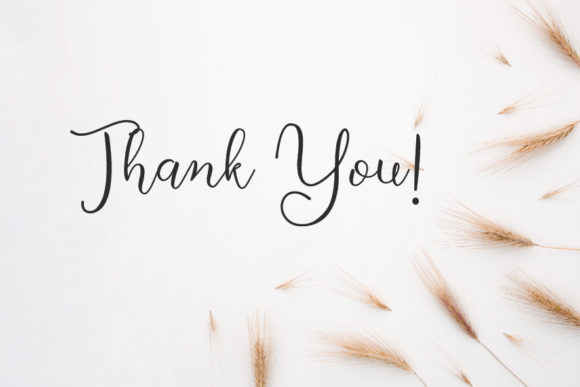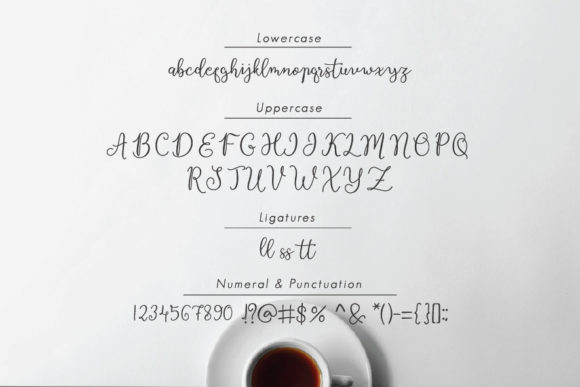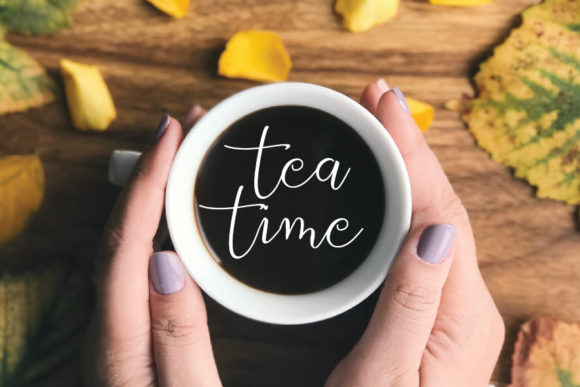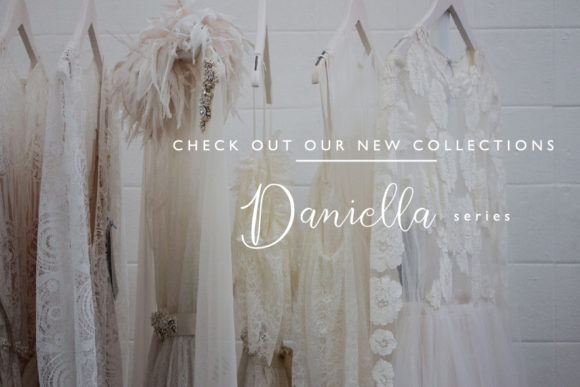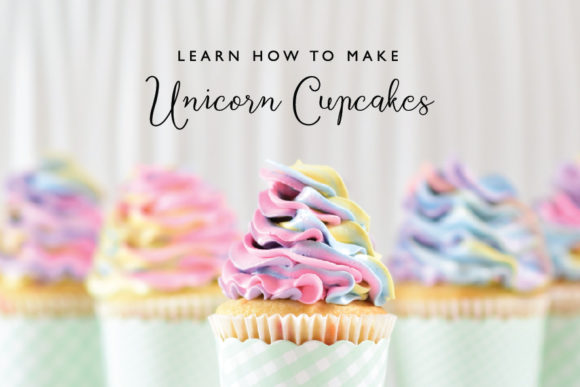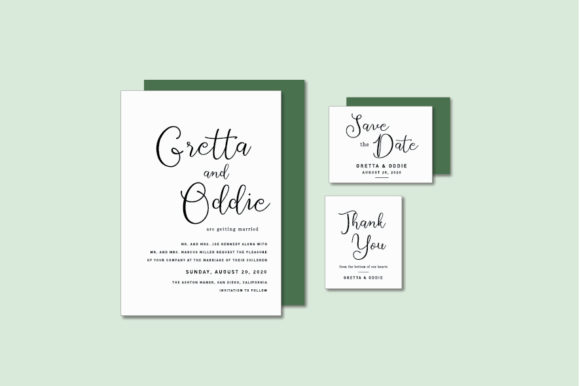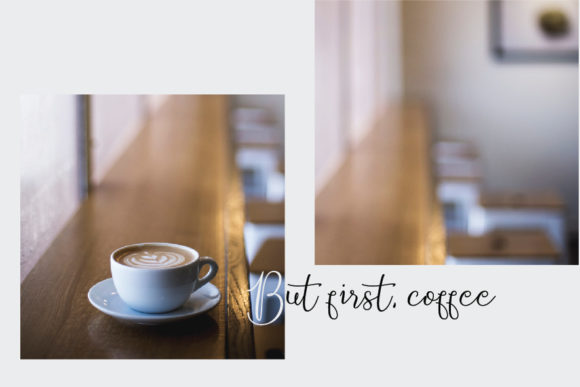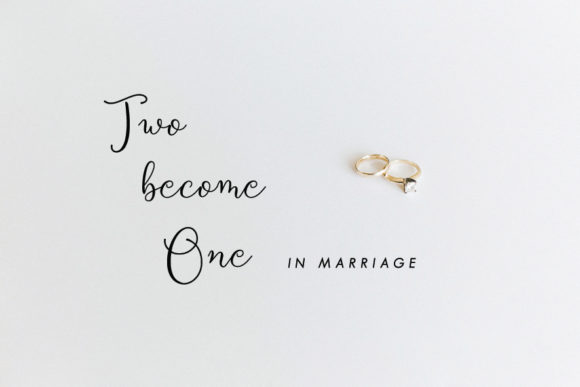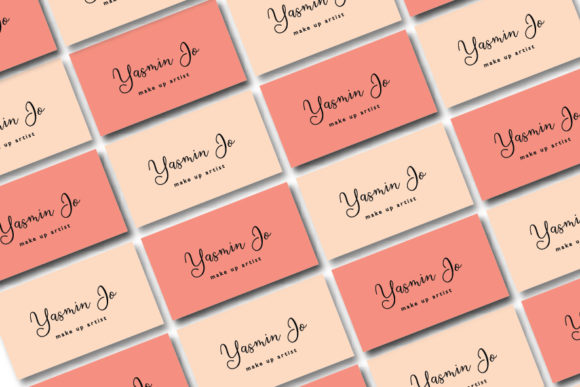
HomeScript FontsBesttea Font Script Fonts Besttea Font FacebookXPinterestWhatsApp Besttea Font Poster 2 Besttea Font Poster 3 Besttea Font Poster 4 Besttea Font Poster 5 Besttea Font Poster 6 Besttea Font Poster 7 Besttea Font Poster 8 Besttea Font Poster 9 Besttea Font Poster 10 About Besttea Font Besttea is a one-of-a-kind handwritten font that will elevate any craft idea. Get inspired by its authentic vibe. DOWNLOAD ON CREATIVE FABRICAThis font is sold and delivered by Creative Fabrica. Font Canyon may earn a commission if you buy through this link. People also explored Bsting Font Gradness Font Banana Font Sallone Font Piktogram Font Rusticle Font Mandors Font Adventure in the Forest Font Madrosah Font 323 0 TagsBesttea Font Previous articleGanella FontNext articleNothingham Script Font LEAVE A REPLY Cancel reply Comment: Please enter your comment! Name:* Please enter your name here Email:* You have entered an incorrect email address! Please enter your email address here Website: Save my name, email, and website in this browser for the next time I comment. Personal Use Free Osaka Personal Use Free Read more about this font Black Friday Personal Use Free Read more about this font Historise Personal Use Free Read more about this font Sweet Someday Personal Use Free Read more about this font BLOG Best Fonts for YouTube Videos: Make Your Thumbnails Stand Out Best Fonts for YouTube Videos: Make Your Thumbnails Stand Out Choosing the right font can make a massive difference in how your YouTube videos perform.... Transform Your Website: Elevate Your Typography with 7 Best Web Font Generators How to Install and Use Fonts on Windows, macOS, and Web Projects Fonts That Capture the Spirit of New York City